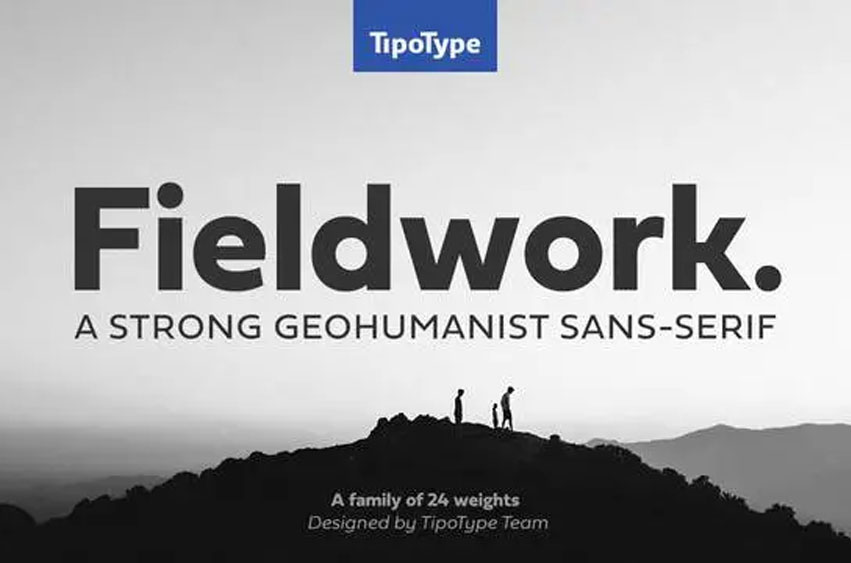
Fieldwork Font
Fieldwork Font Today we bring you Fieldwork Typeface; a set of sans Serif typefaces that brings back some of the traditional ways of typographic manufacturing without using lab techniques. All 24 variations were drawn with the help of optical analysis.
Each weight modification was done on the curves and features and then reshaped to comply with specifications of the different stroke weights.